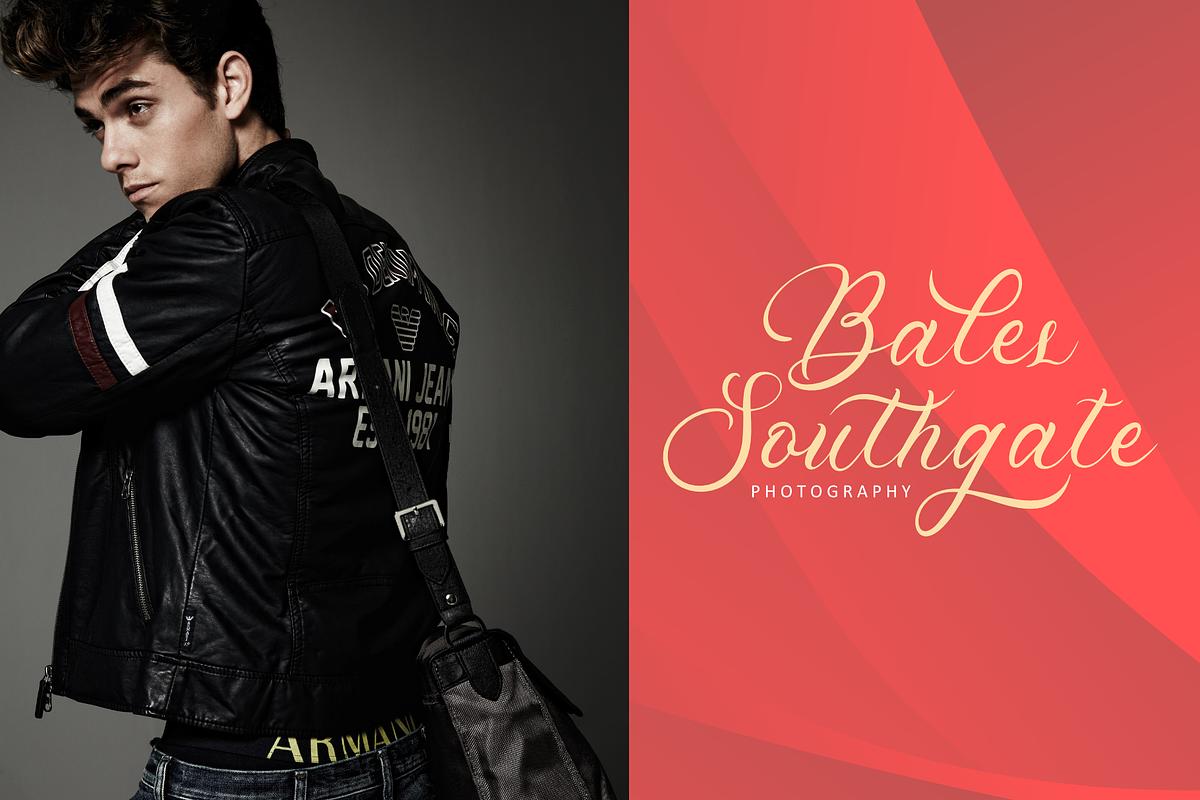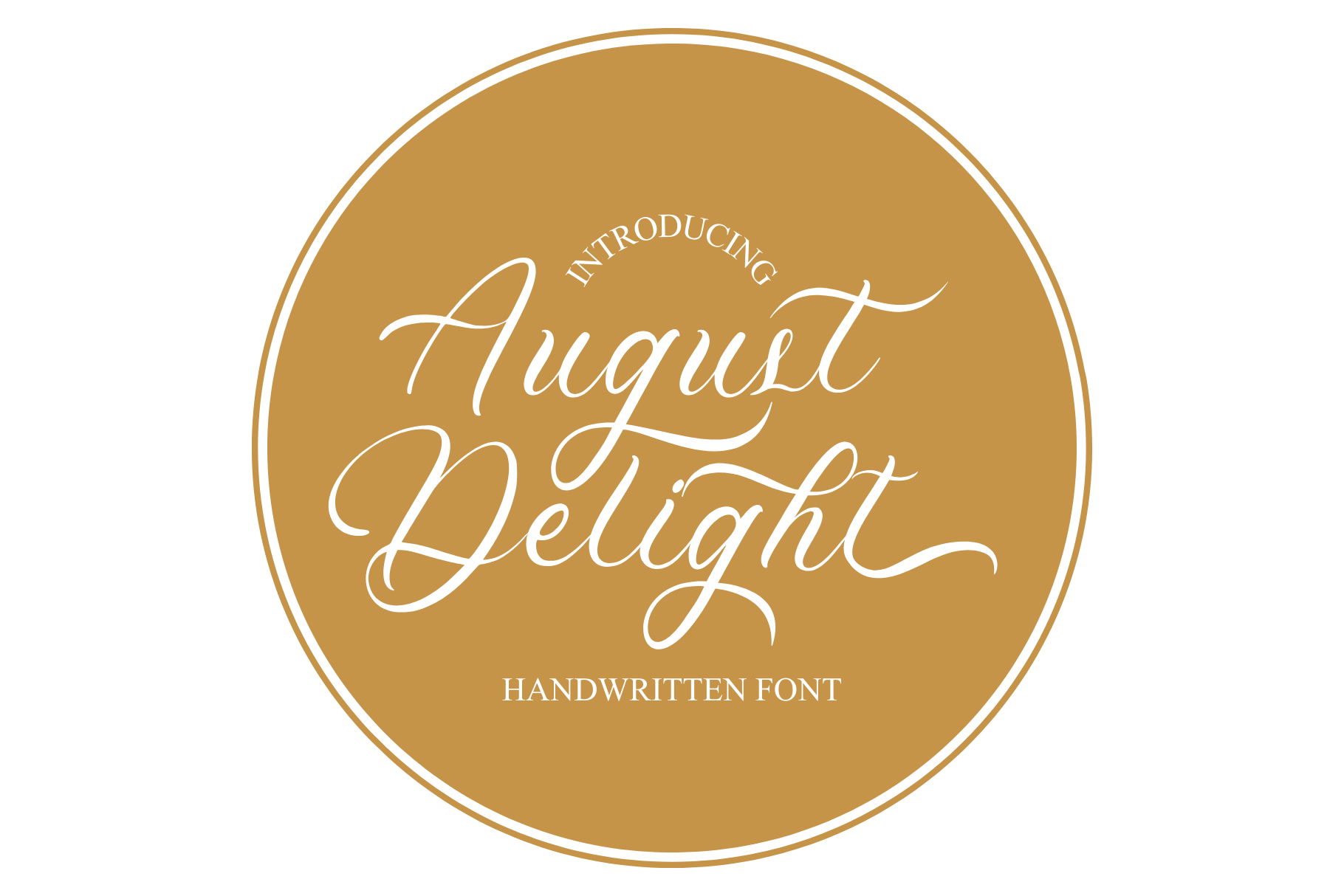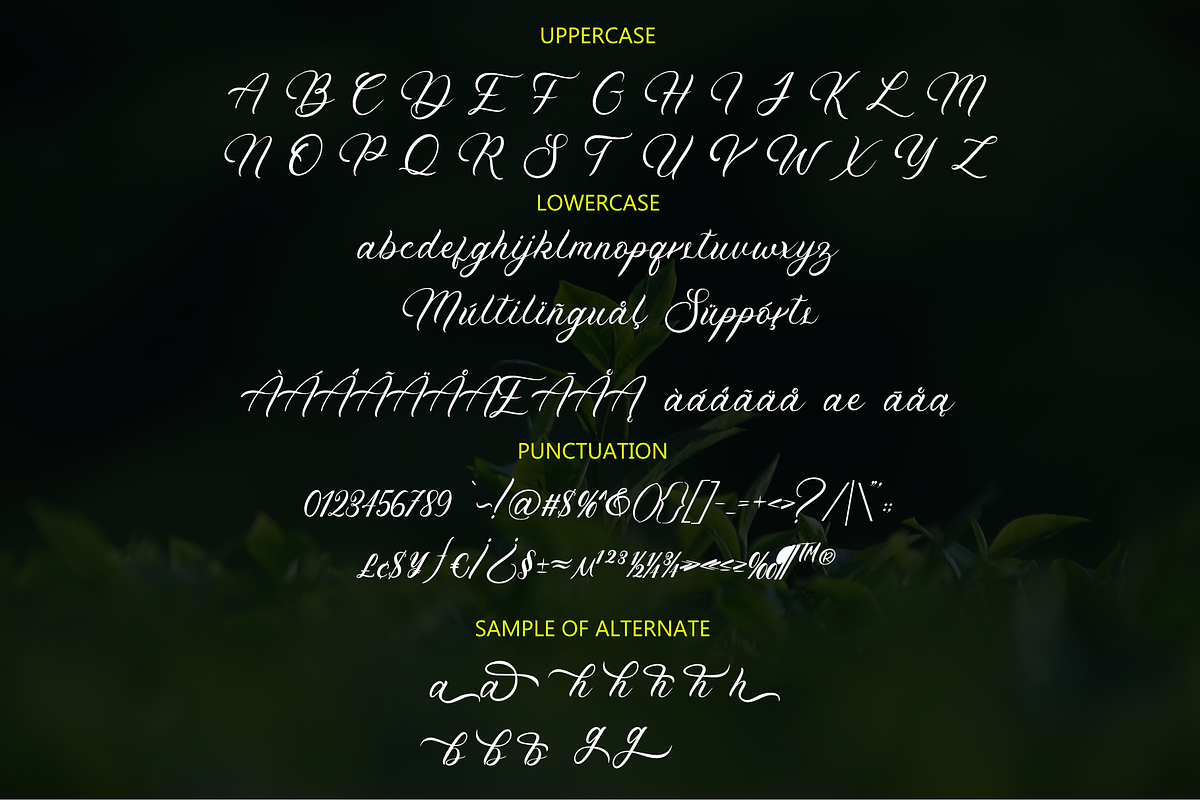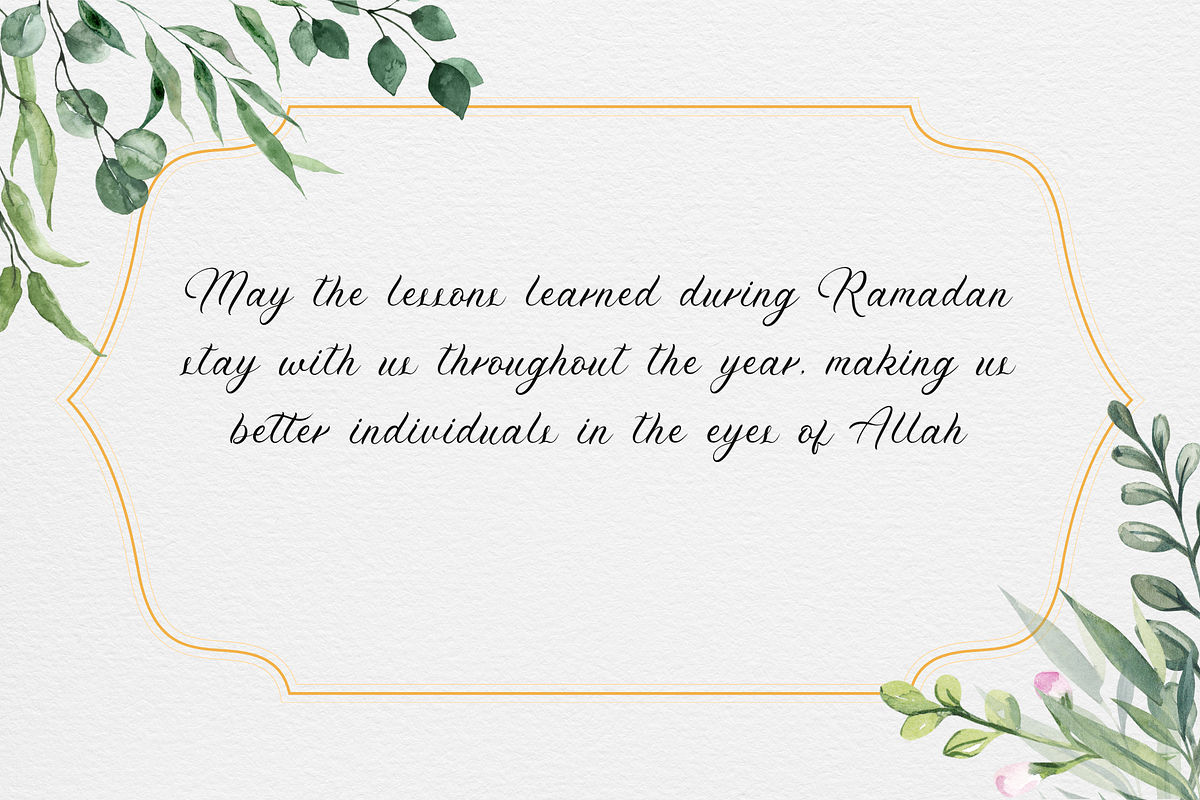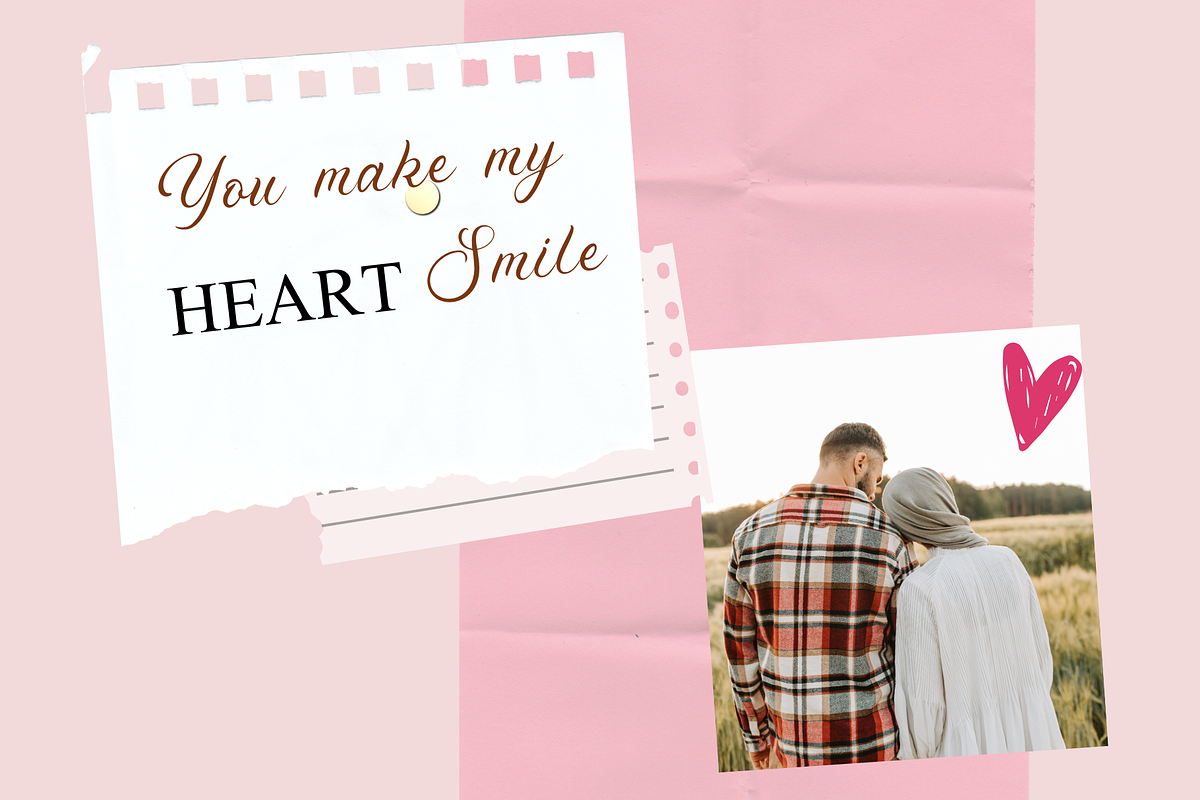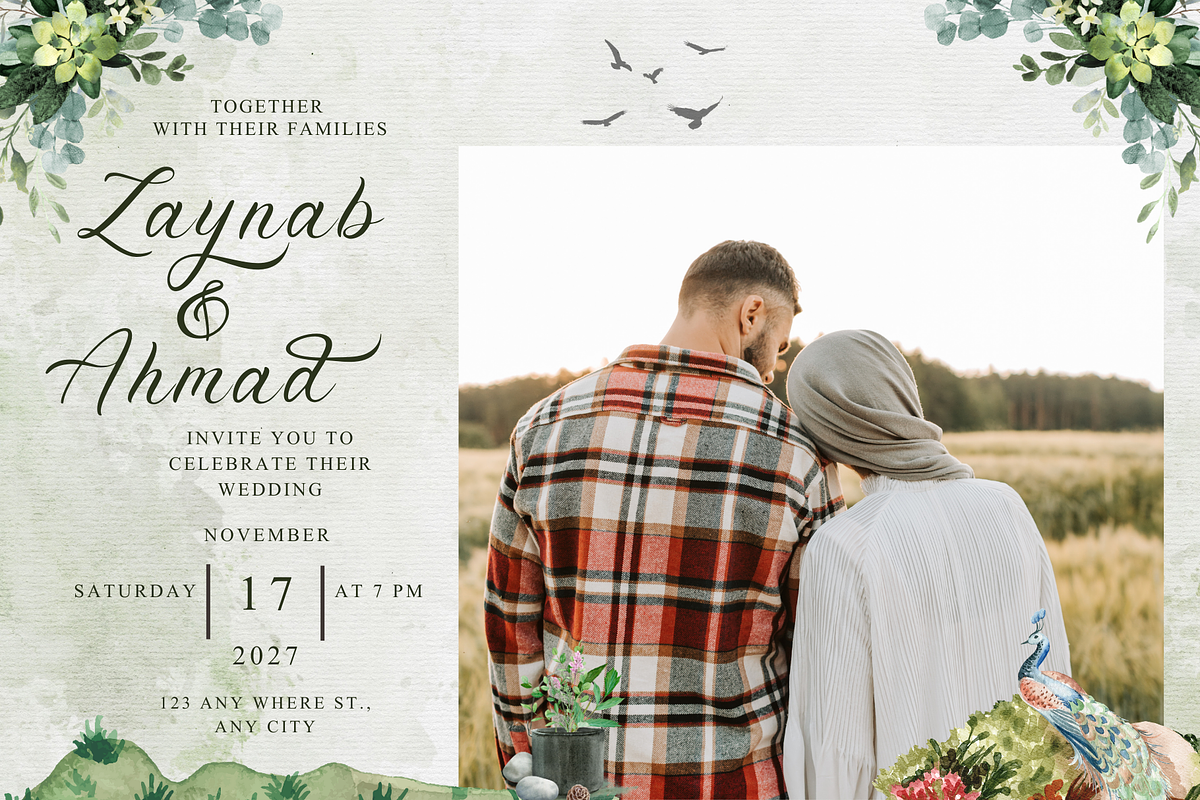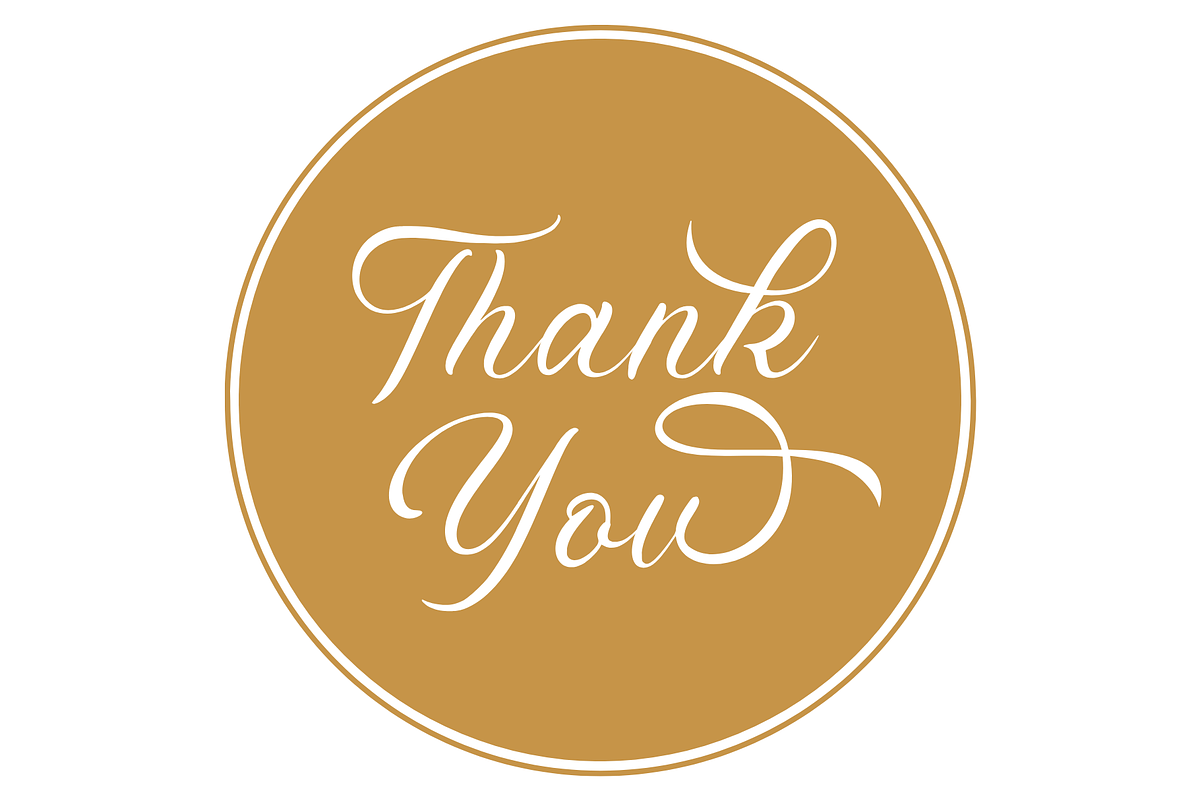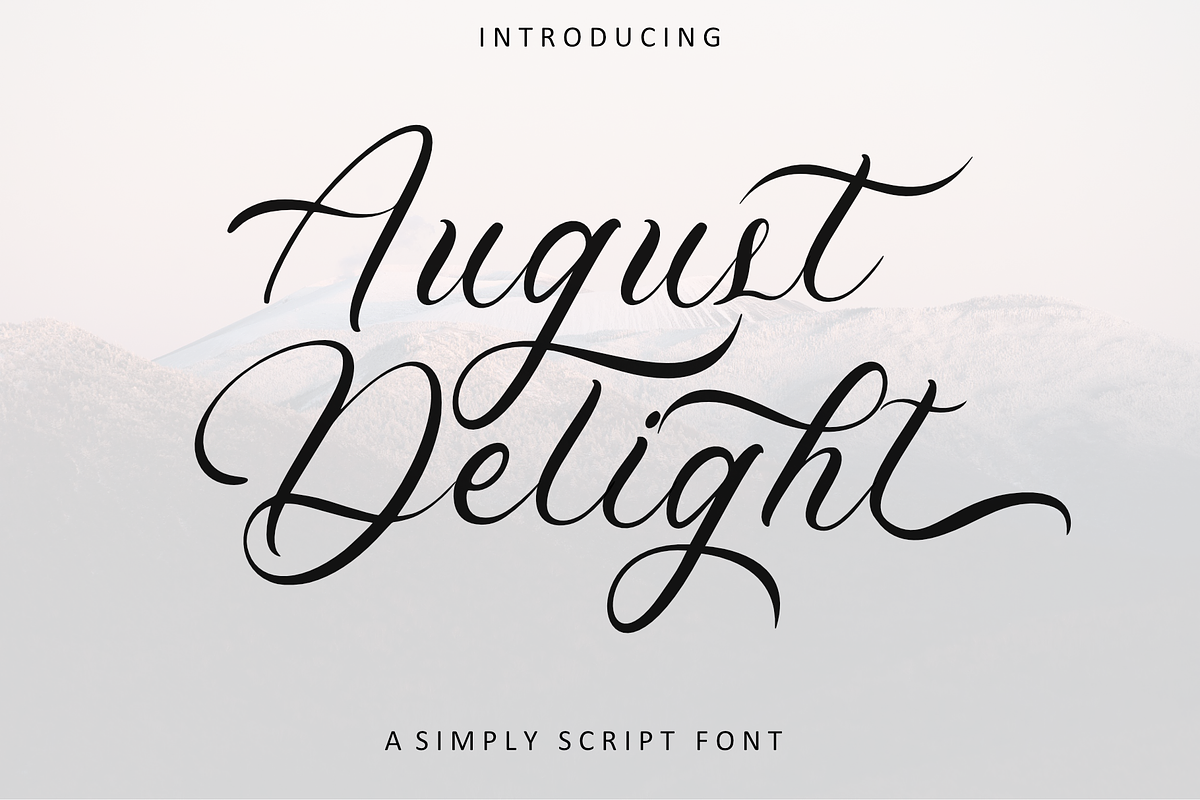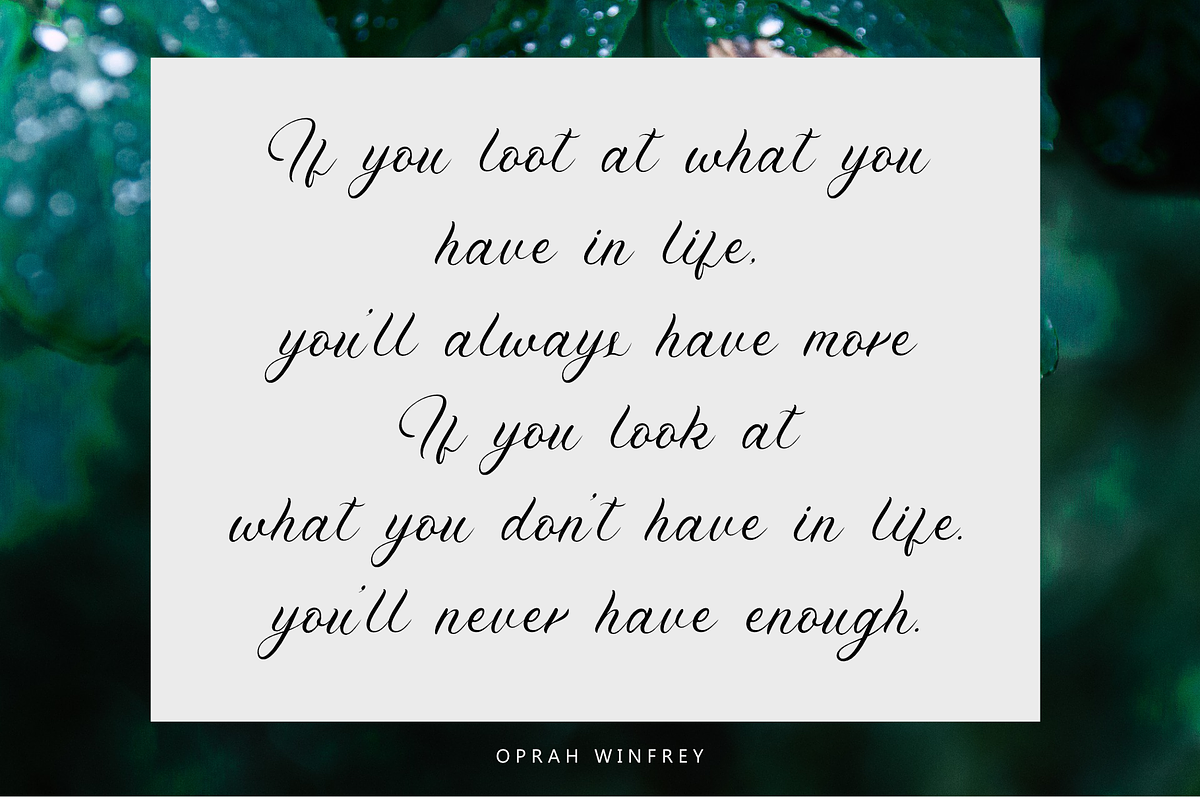
August Delight | Handwritten Font
August Delight is a charming handwritten font that captures the essence of late summer days. With its flowing lines and elegant curves, this font brings a touch of warmth and nostalgia to any project. Perfect for invitations, greeting cards, quotes, and more, August Delight adds a personal and whimsical touch to your designs. Embrace the beauty of August with every stroke of this delightful font.